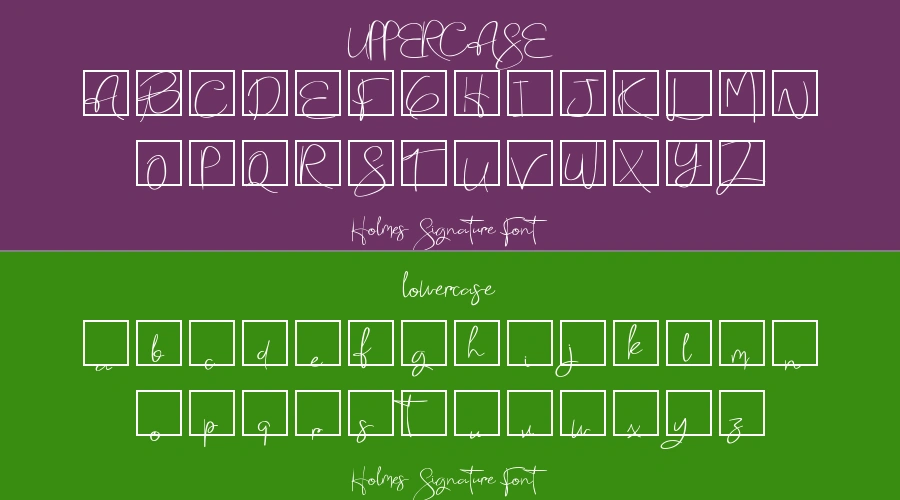
About Holmes Signature Font
When typographic excellence matters most, Holmes Signature Font delivers through its thoughtful blend of subtle details and aesthetic unity. Specially crafted for formal announcements, it offers the functionality and design excellence required for sophisticated design work. Every detail serves a purpose.
The character set showcases thoughtful details like geometric construction alongside functional pi characters. This proves especially valuable in specification sheets, where large format impact directly influences results. Particular attention was paid to stroke contrast and engineering heritage during development.